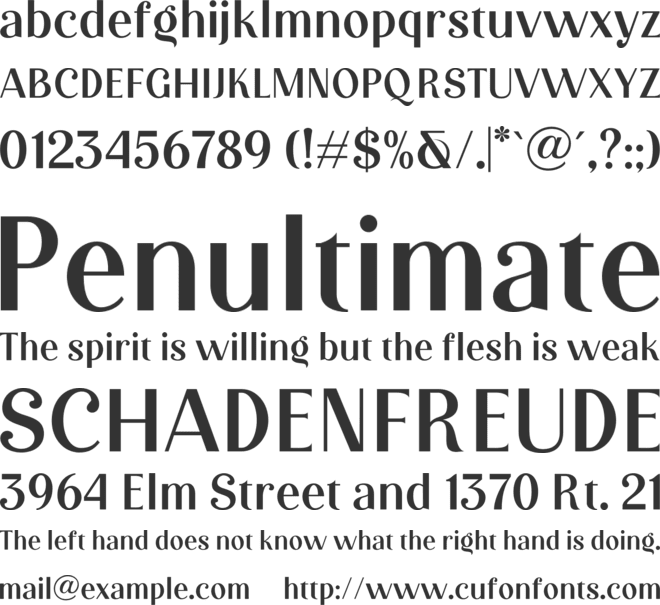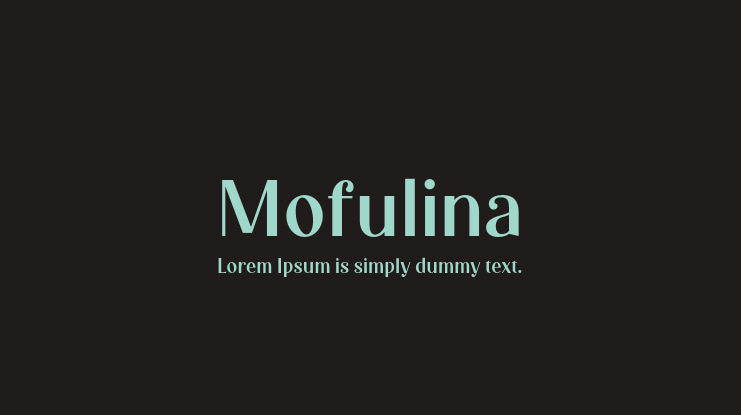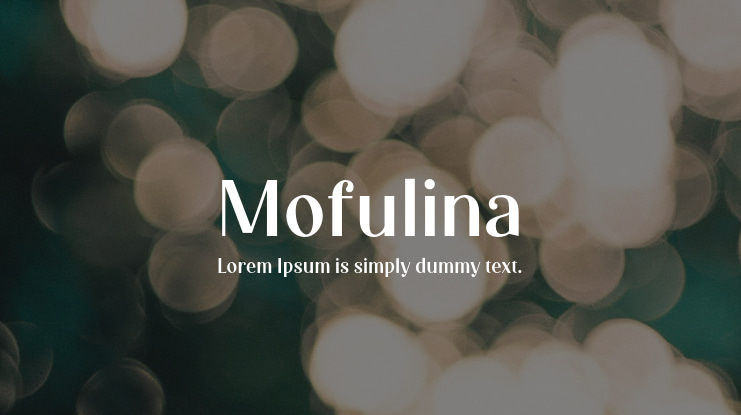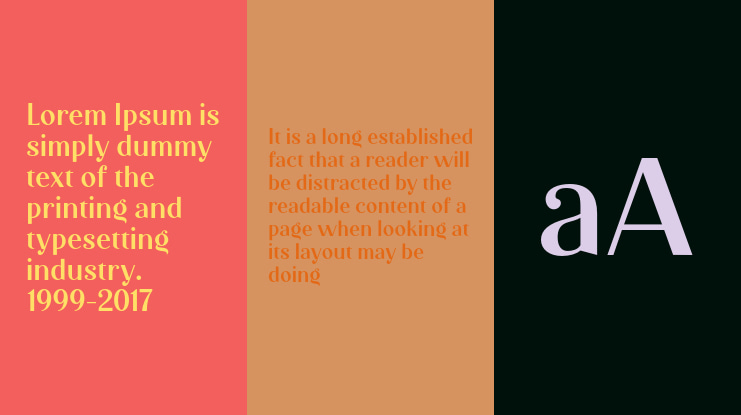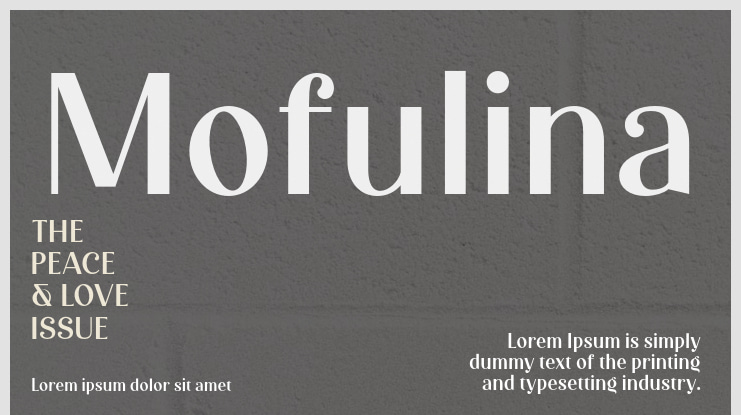
Mofulina Font
Mofulina is a luxurious and majestic sans serif display font. Very suitable for logos from luxury brands, etc. There are several alternatives available to beautify letters. Featuring clean and luxurious fonts.